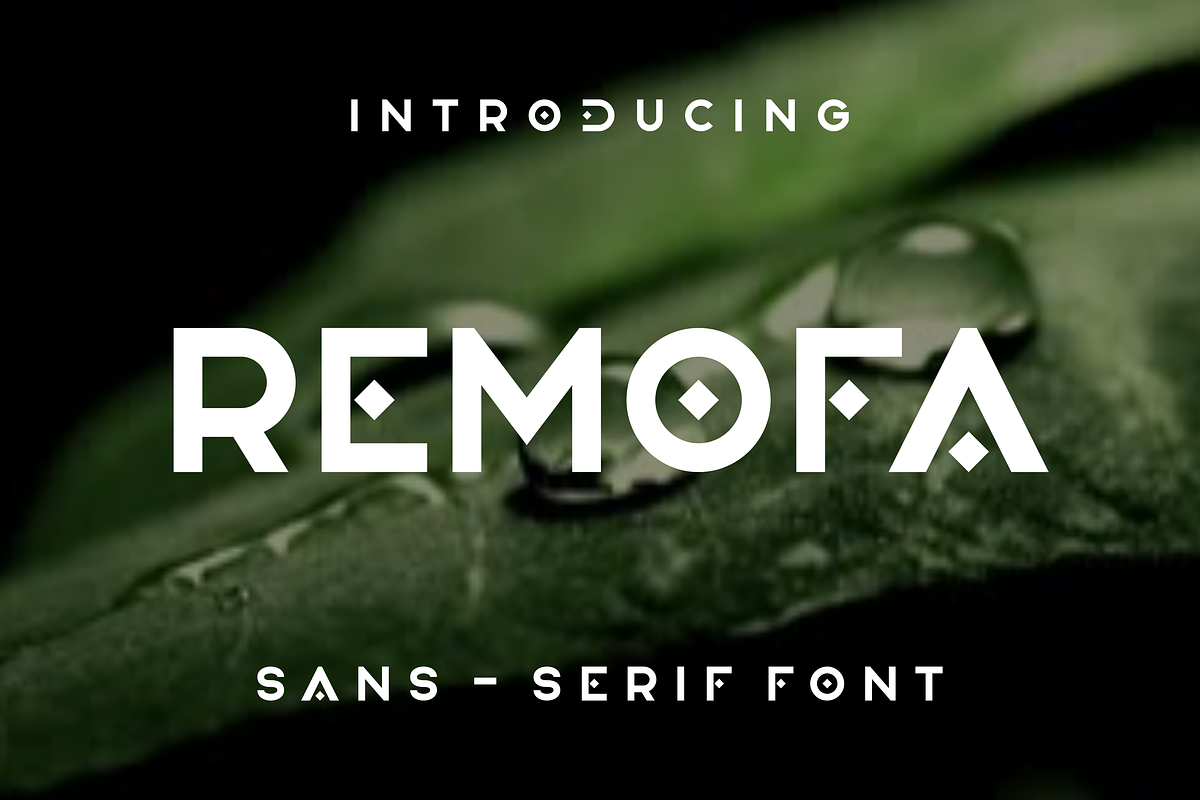
You must purchase this font for commercial use. However, you can download Remofa Font Free Download for testing purposes. Remofa is a stylish, contemporary font that combines clean, geometric shapes with subtle, elegant details. Perfect for a wide range of design projects, including branding, logos, editorial layouts, social media content, and more, this font brings sophistication and readability to your work.
With its modern structure and balanced letterforms, Remofa is ideal for both display use and smaller text, making it versatile for a variety of applications. Whether you're working on a minimalist design, an upscale product brand, or a modern editorial project, this font will enhance your typography with a sleek, polished touch.